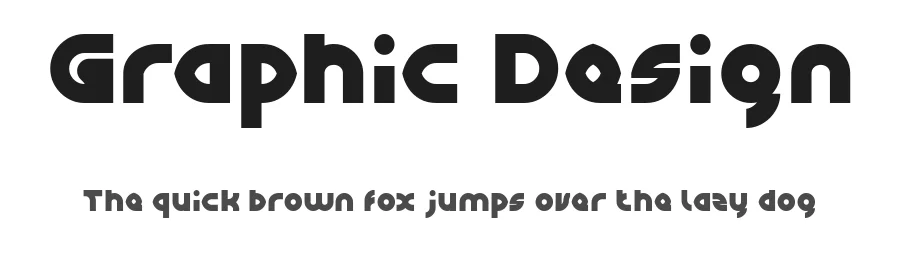
About HMan Font
HMan is a decorative font designed by Brain Eaters Font Co.. It includes 120 glyphs, TTF (TrueType) format, and 107 languages. HMan is free to download; check the license details on this page before commercial use. Decorative fonts like HMan work best for logos, posters, packaging, and standout headlines.
HMan Font is a decorative font that shines as a display or heading face. Pair it with a clean sans-serif or serif font for body text β the contrast creates a clear hierarchy while the two styles stay balanced and easy to read.
HMan Font
HMan Font is a decorative typeface by Brain Eaters Font Co., ideal for logos, invitations, branding, and creative projects.